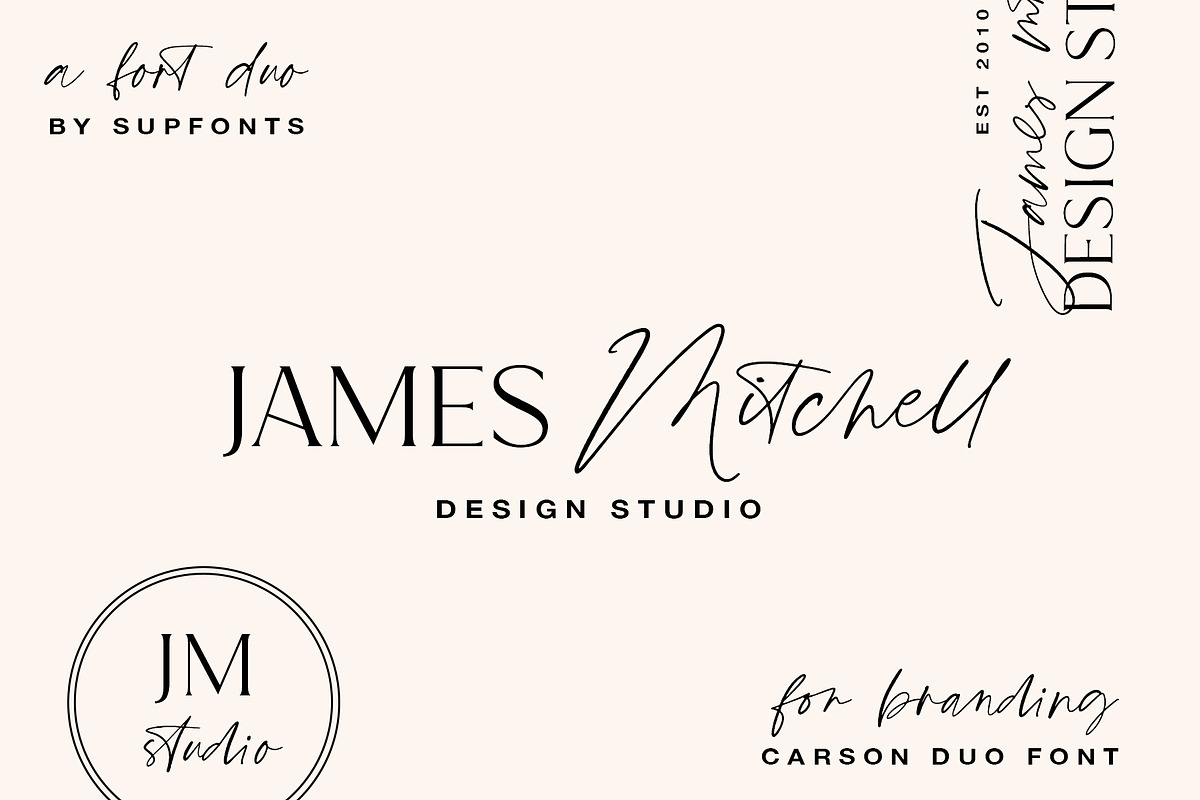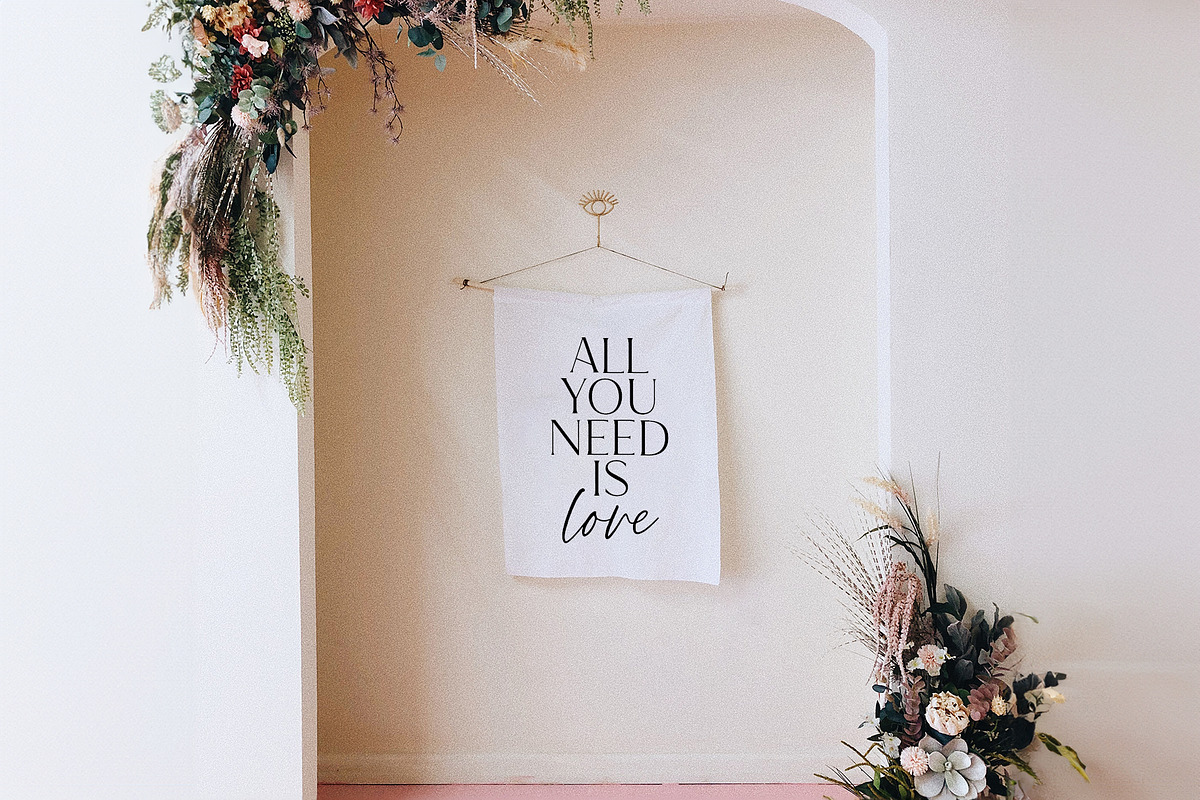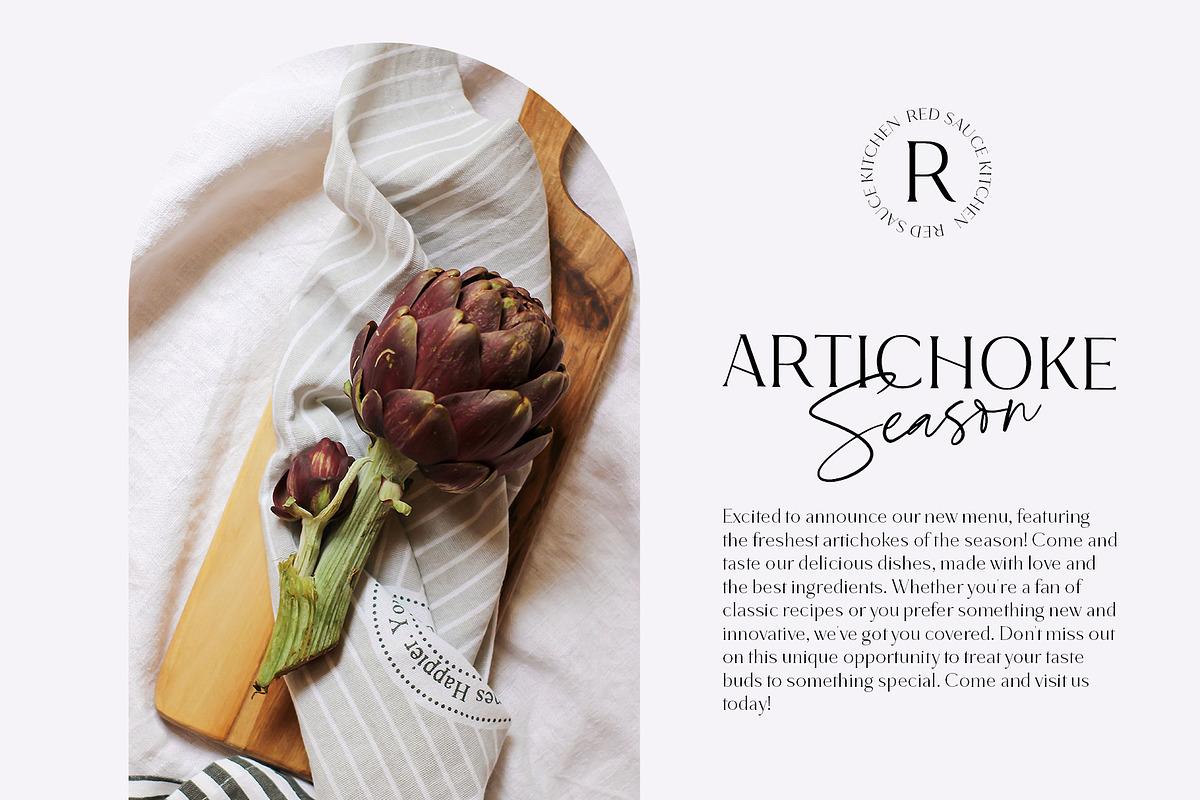
Carson is a combination of a sophisticated serif typeface and a relaxed handwritten script. It has a contemporary and uncomplicated design that adds an elegant and tidy touch to various projects such as websites, logos, branding, social media quotes, wedding stationery, and more.
- Full Set of standard alphabet and punctuation
- Ligatures
- Language support: All European languages
- Multilingual Characters